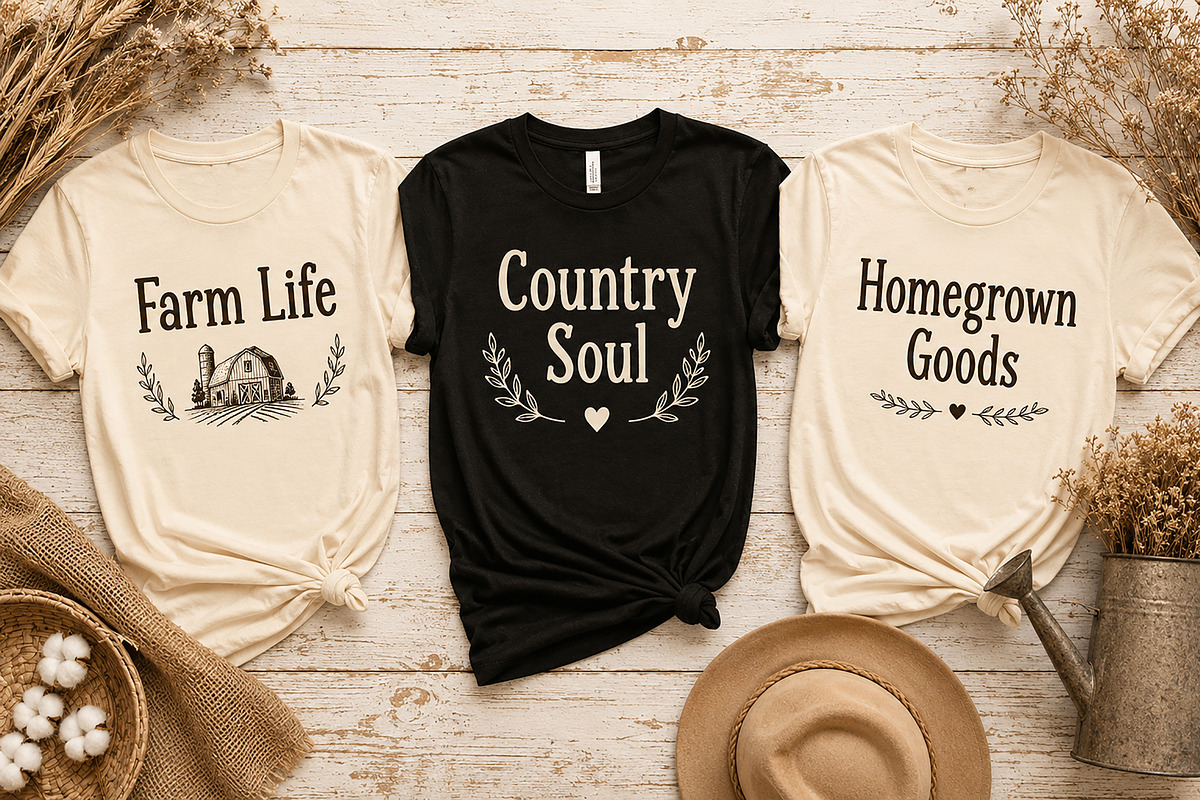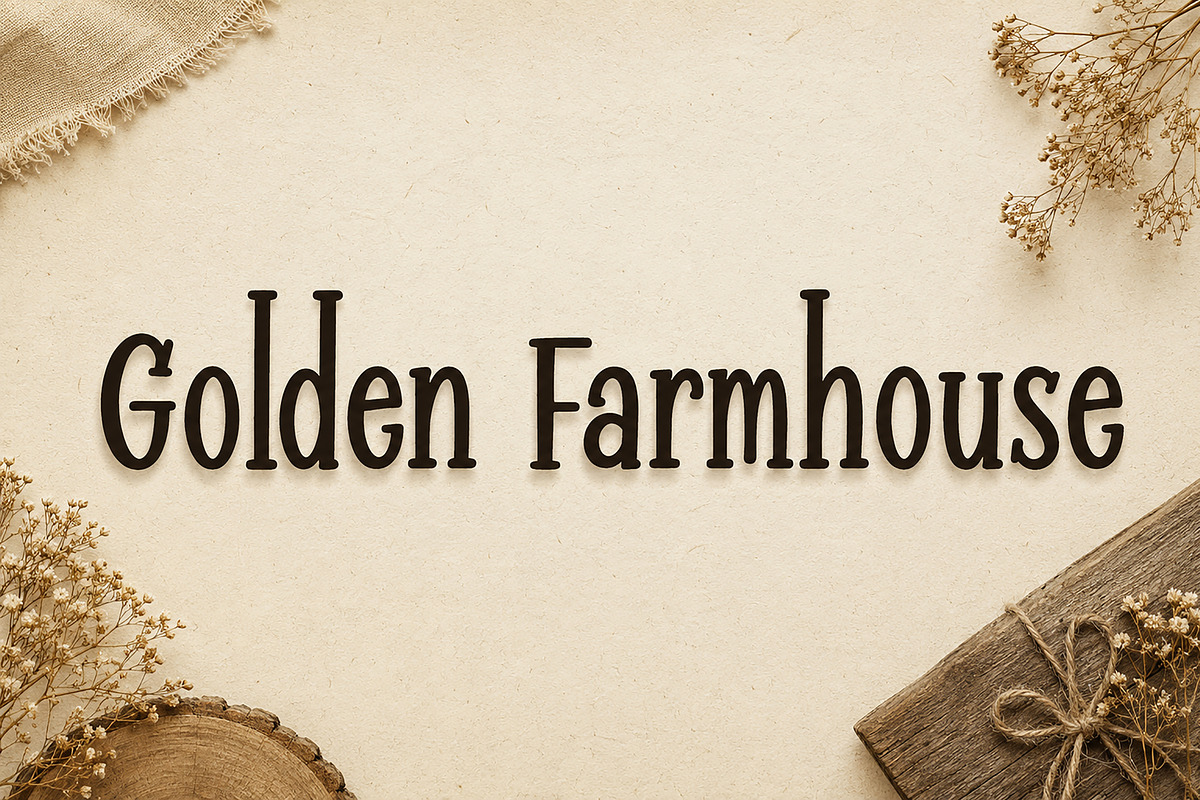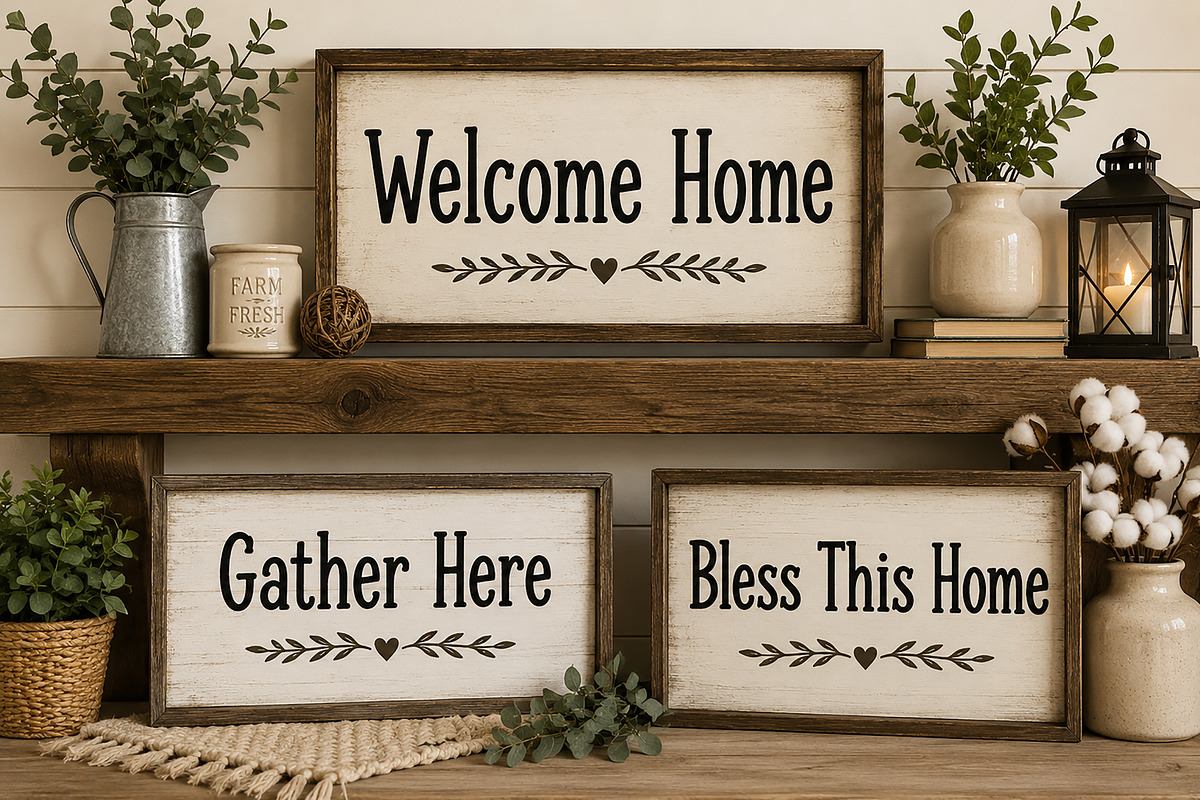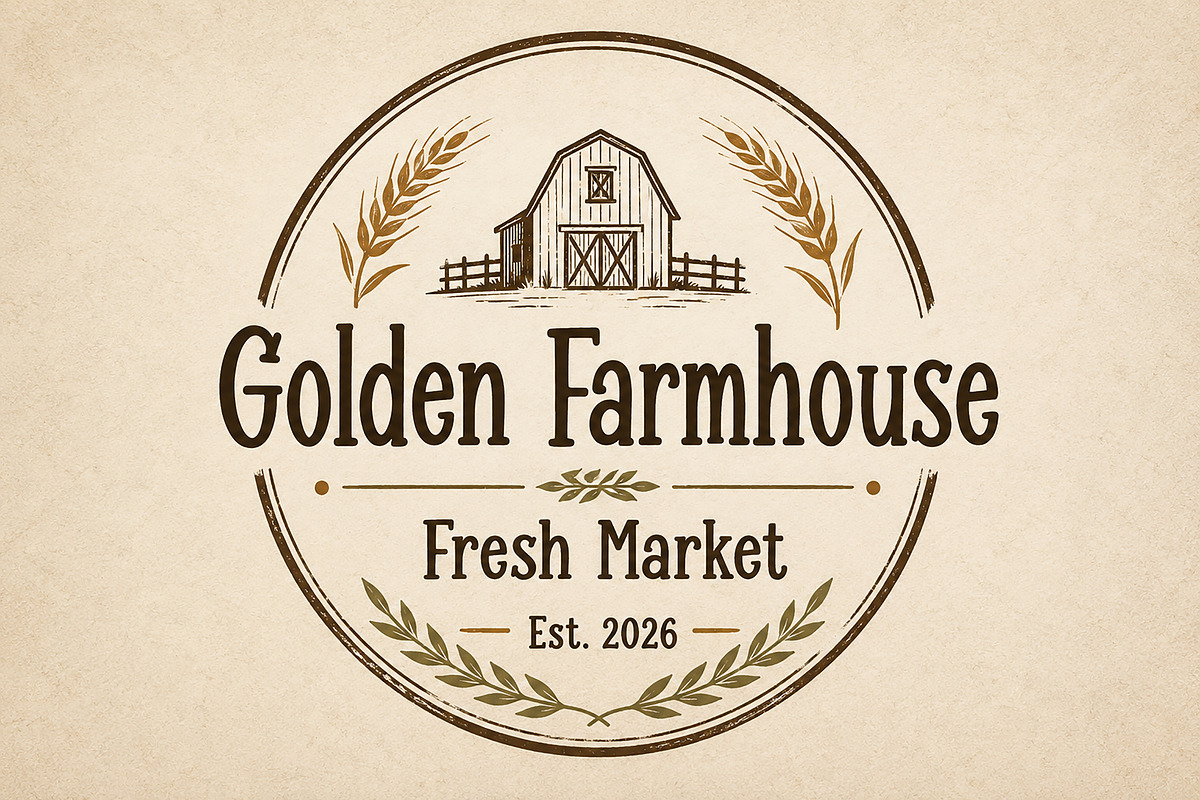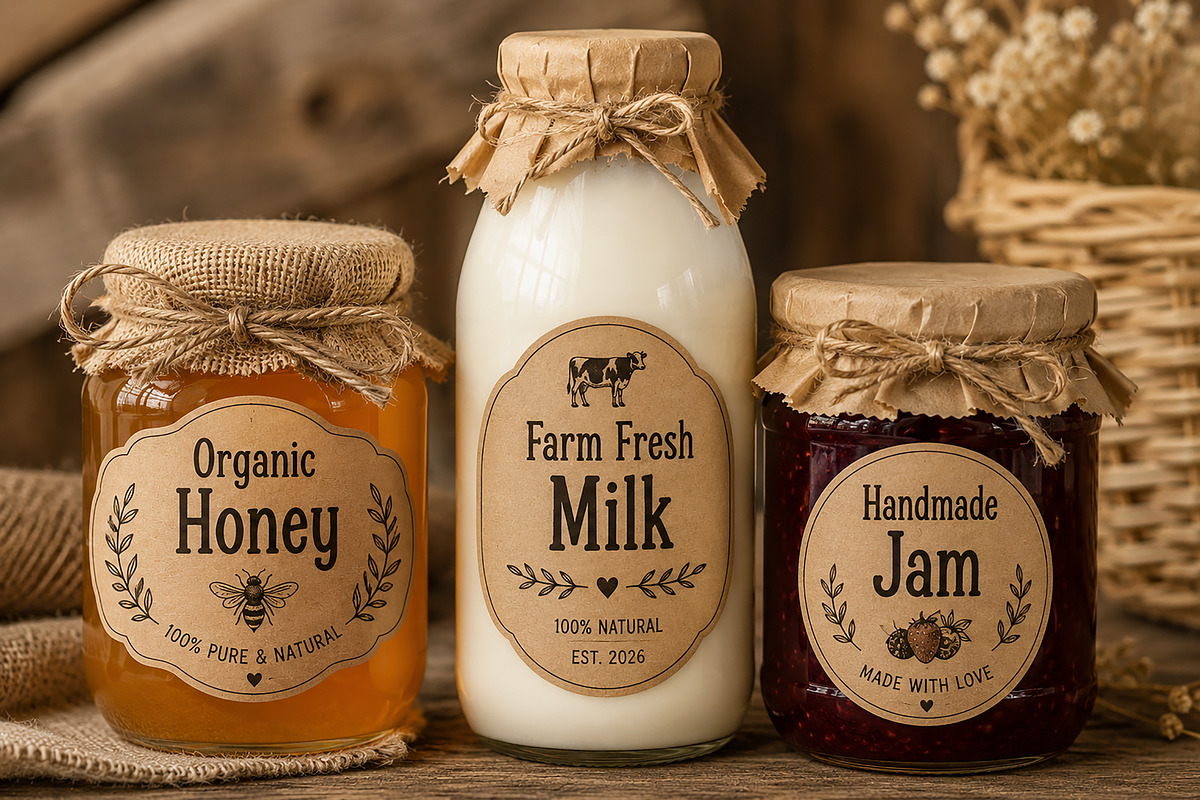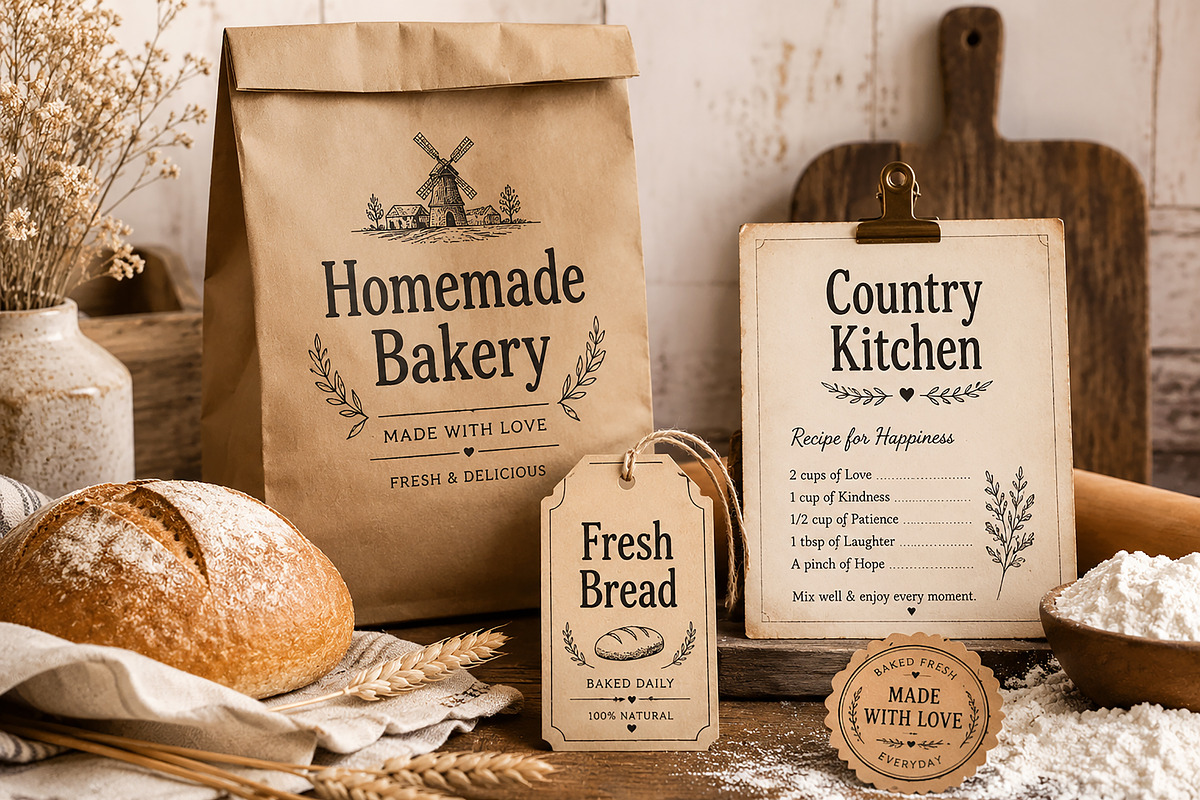
Golden Farmhouse
Golden Farmhouse – Rustic Vintage Serif Font
Golden Farmhouse is a charming vintage serif font inspired by rustic farmhouse aesthetics and handcrafted country-style typography. Featuring tall elegant letterforms, soft vintage curves, and a warm retro personality, this font creates a cozy and timeless look perfect for rustic branding and creative display designs.
Its clean handcrafted style makes it ideal for packaging, café branding, wedding invitations, home décor projects, organic product labels, apparel, posters, signage, and social media graphics. The vintage farmhouse character brings warmth and authenticity while maintaining excellent readability and modern versatility.
Golden Farmhouse combines rustic charm with elegant retro typography, making it a perfect choice for designers seeking a warm, stylish, and handcrafted visual identity.
Farmhouse Branding
Rustic Logos
Organic Packaging
Wedding Invitations
Café & Bakery Branding
Home Décor Designs
Apparel & Merchandise
Posters & Signage
Handmade Product Labels
Rustic Vintage Style
Handcrafted Serif Design
Tall Elegant Letterforms
Warm Farmhouse Character
Uppercase & Lowercase Characters